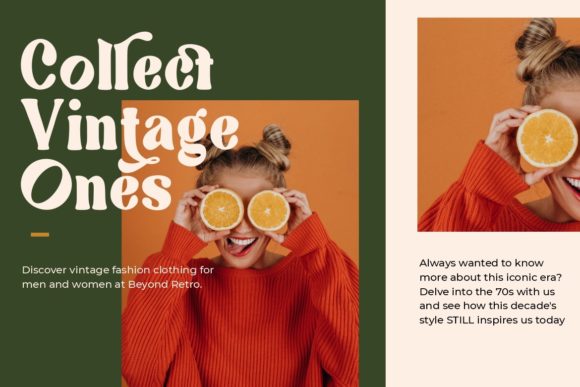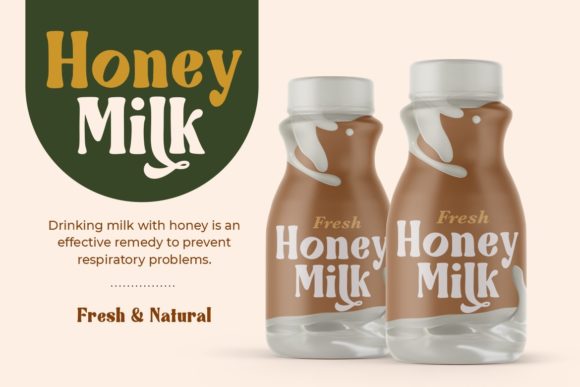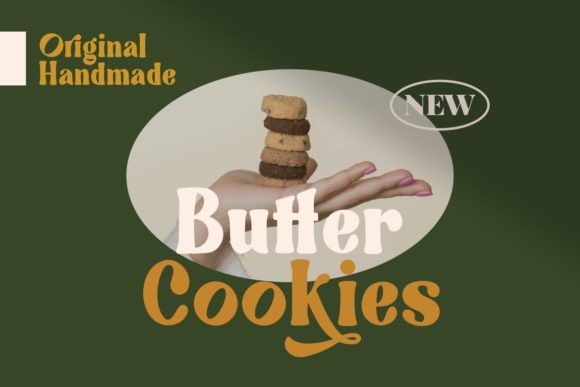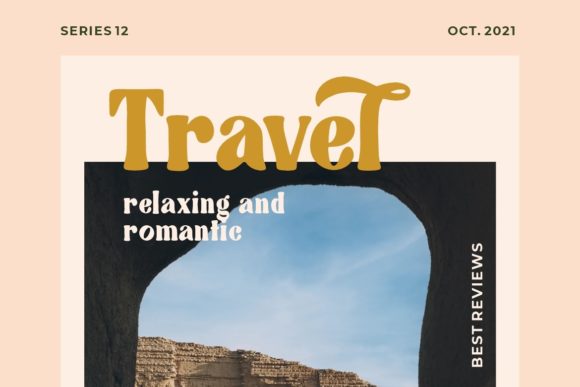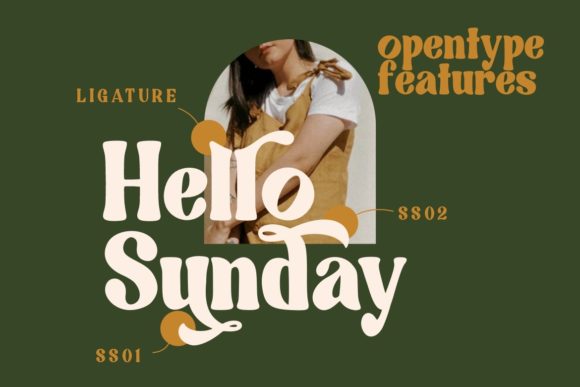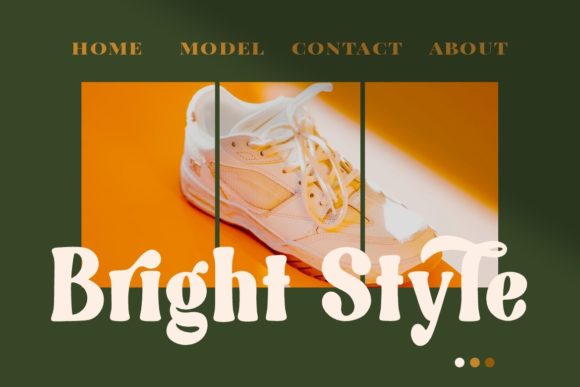
Introduction to Quickly Sustain Font
Quickly Sustain is a cool and vintage styled serif font.
It has a classy, elegant and modern look that can be used for logos, branding, invitations, stationery, wedding designs, social media posts, and much more .